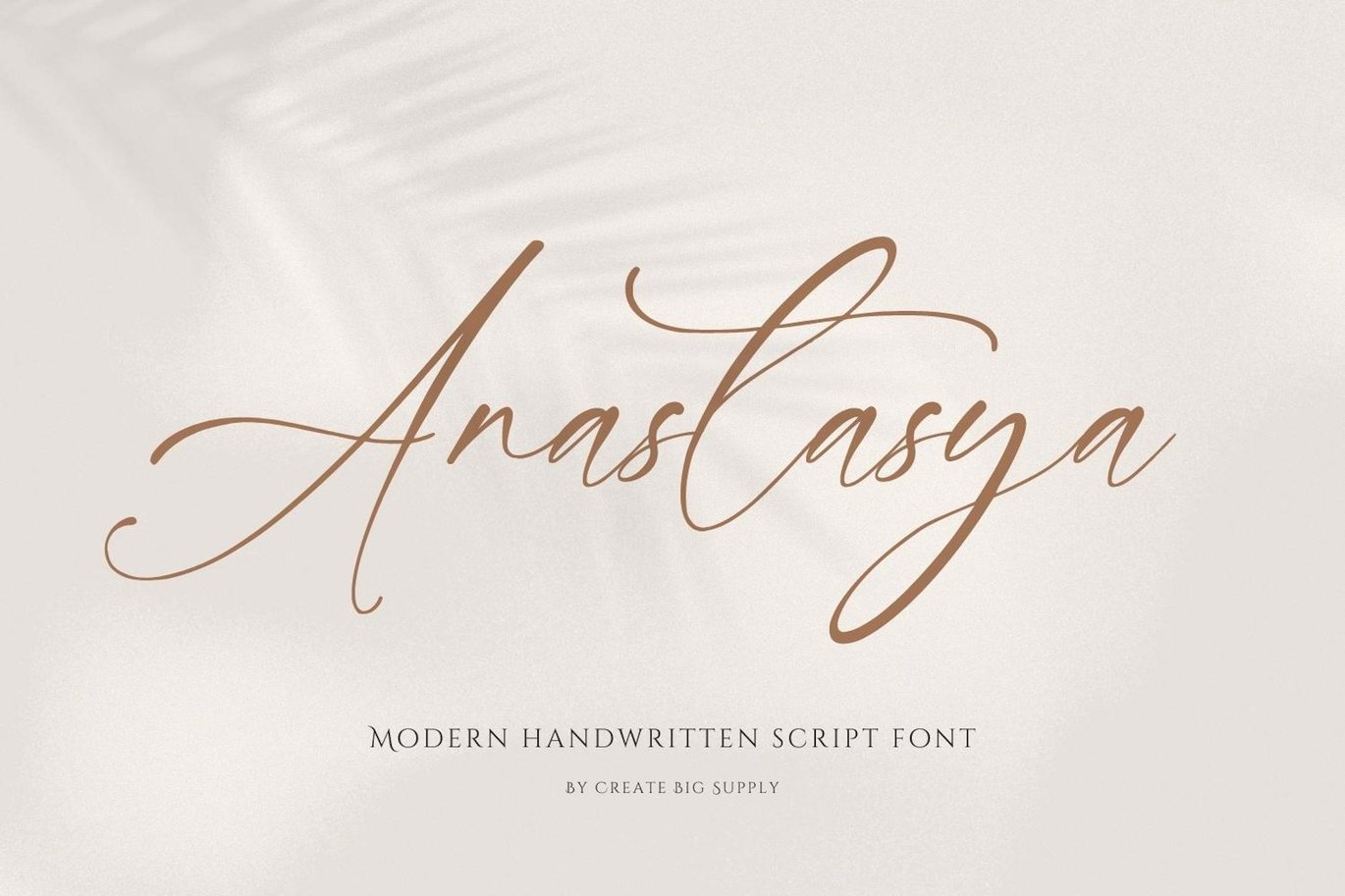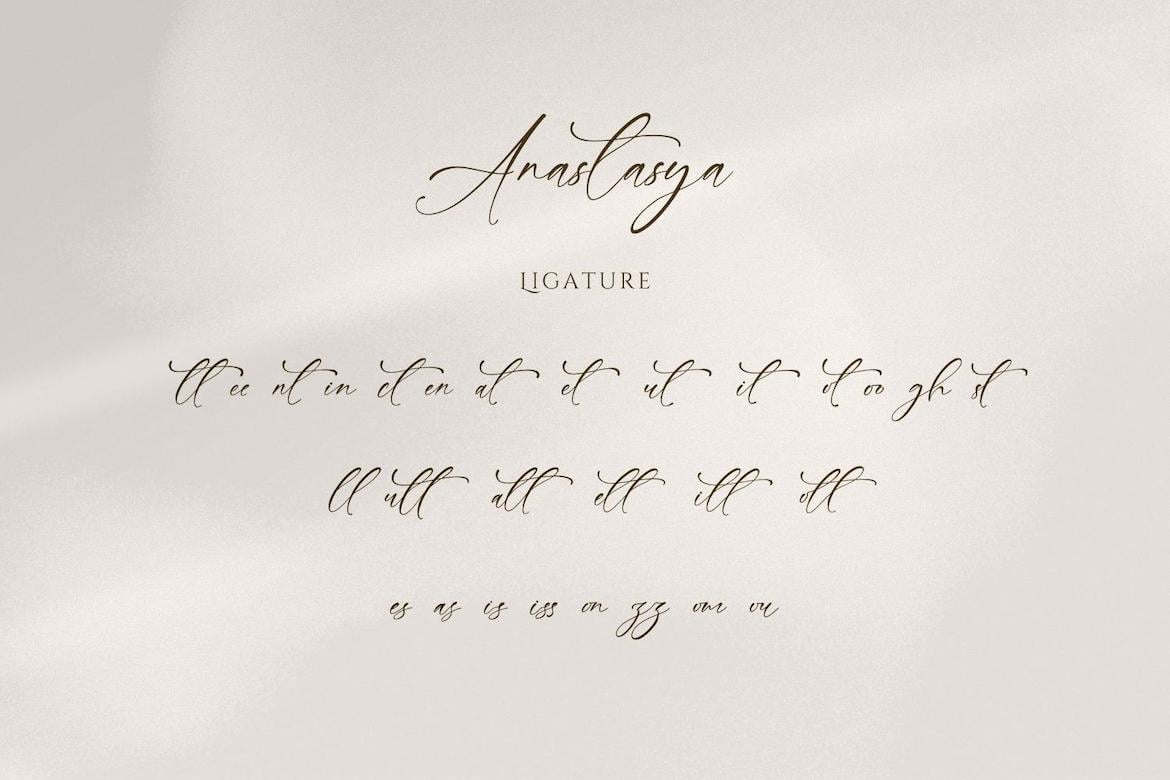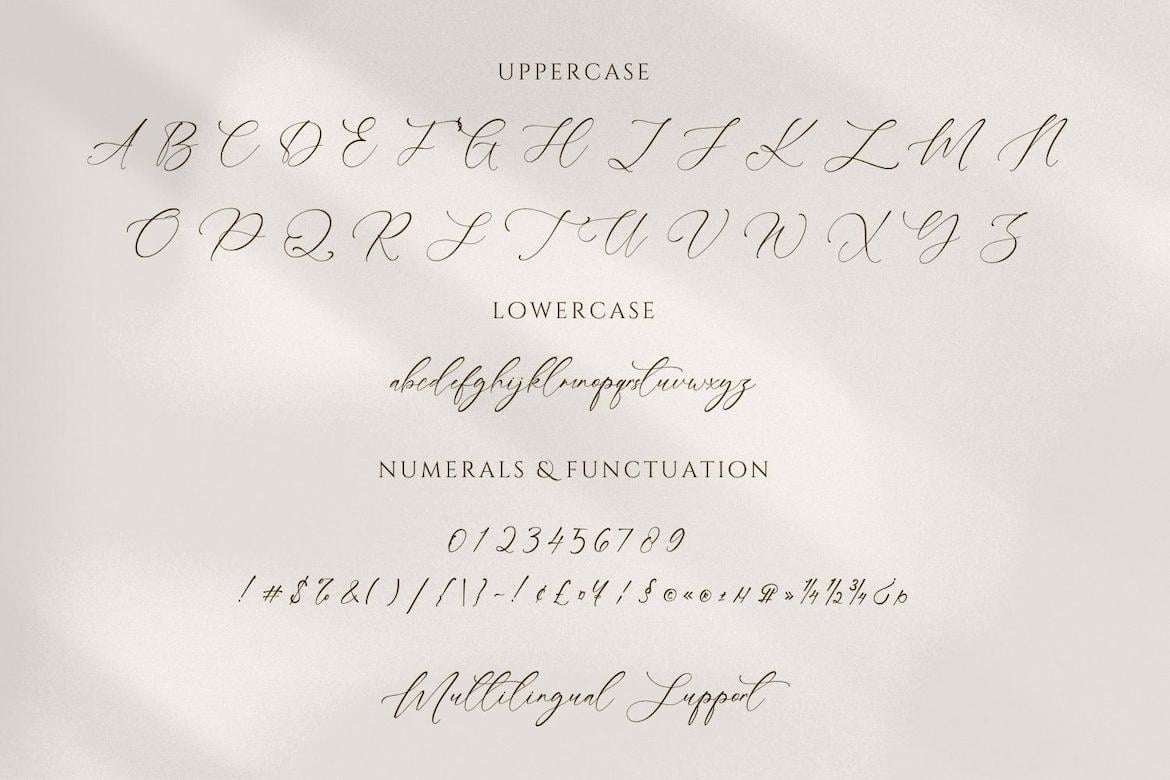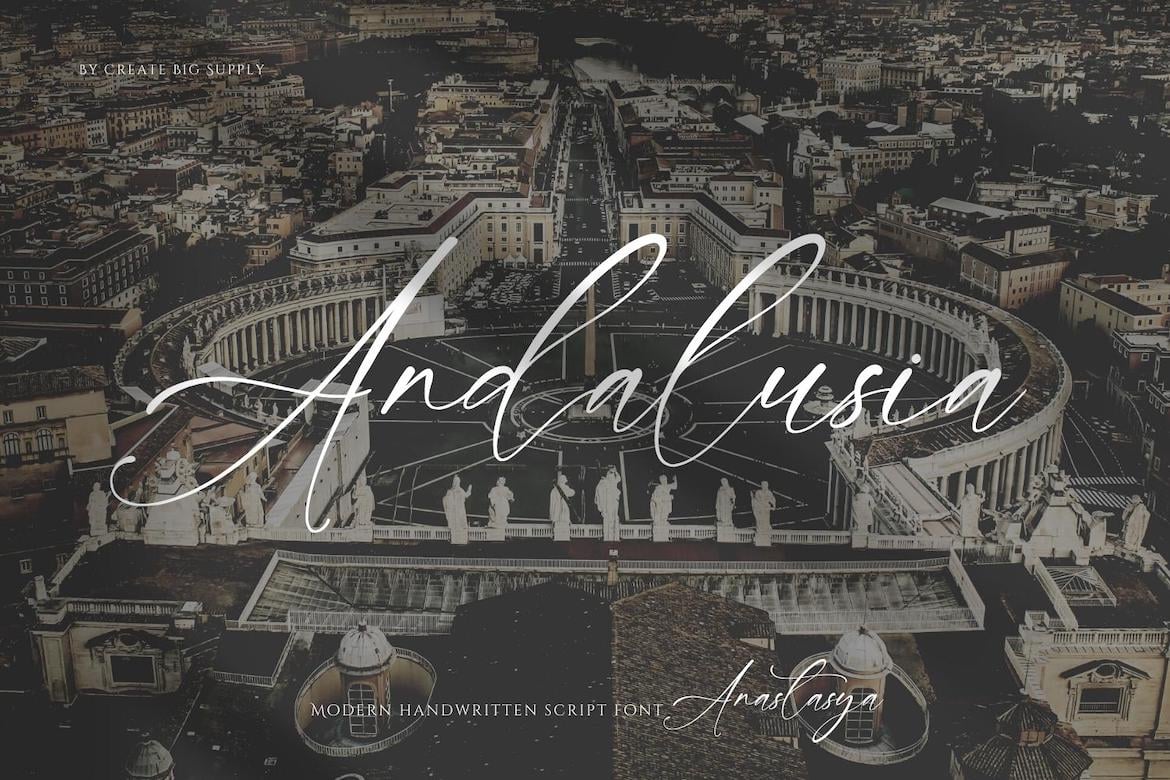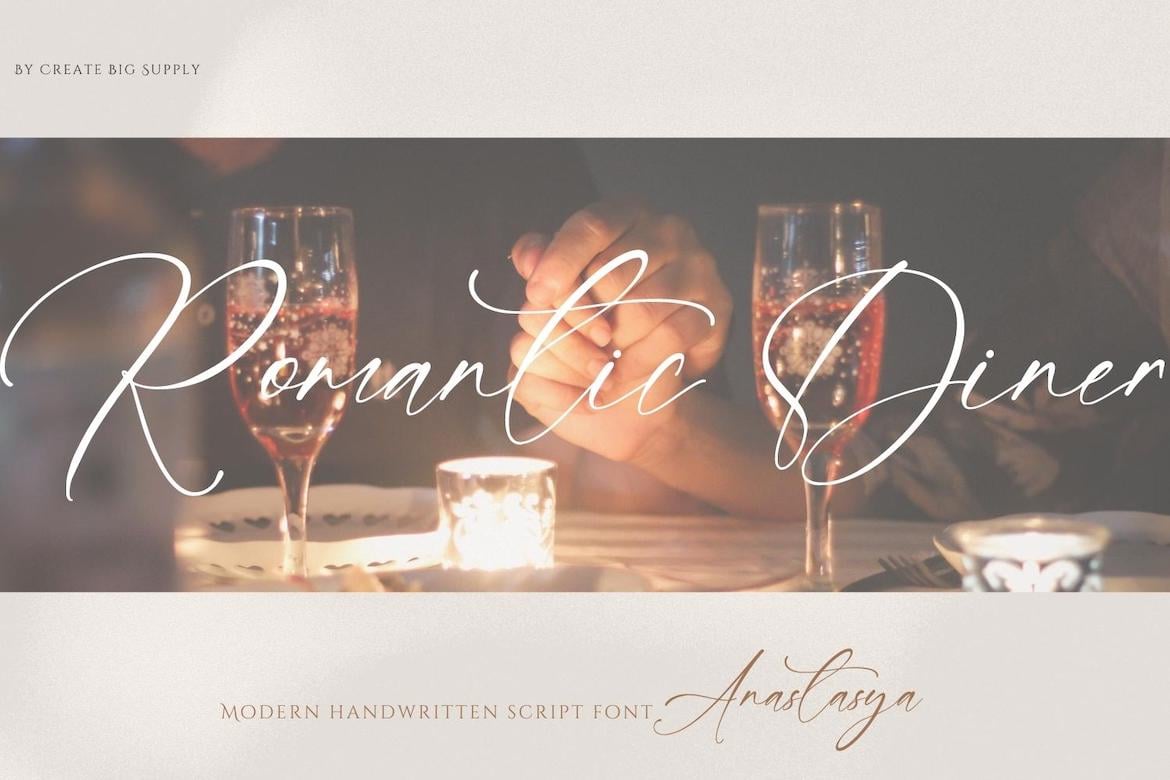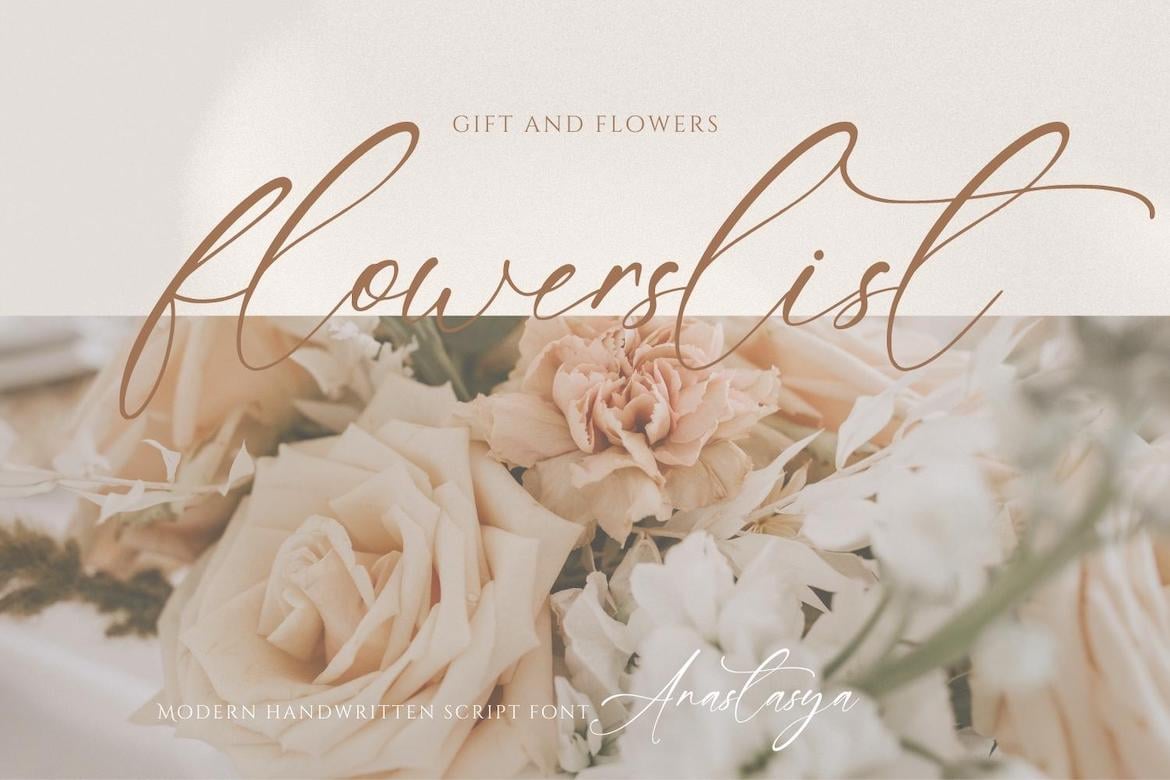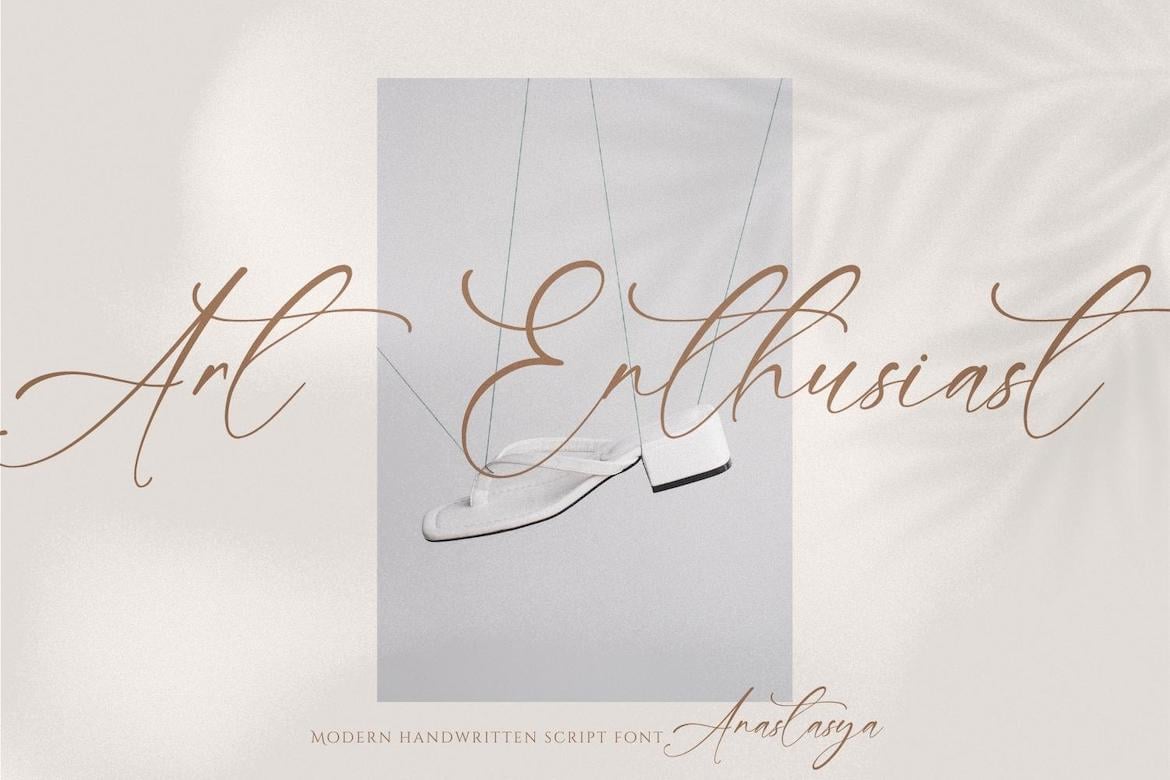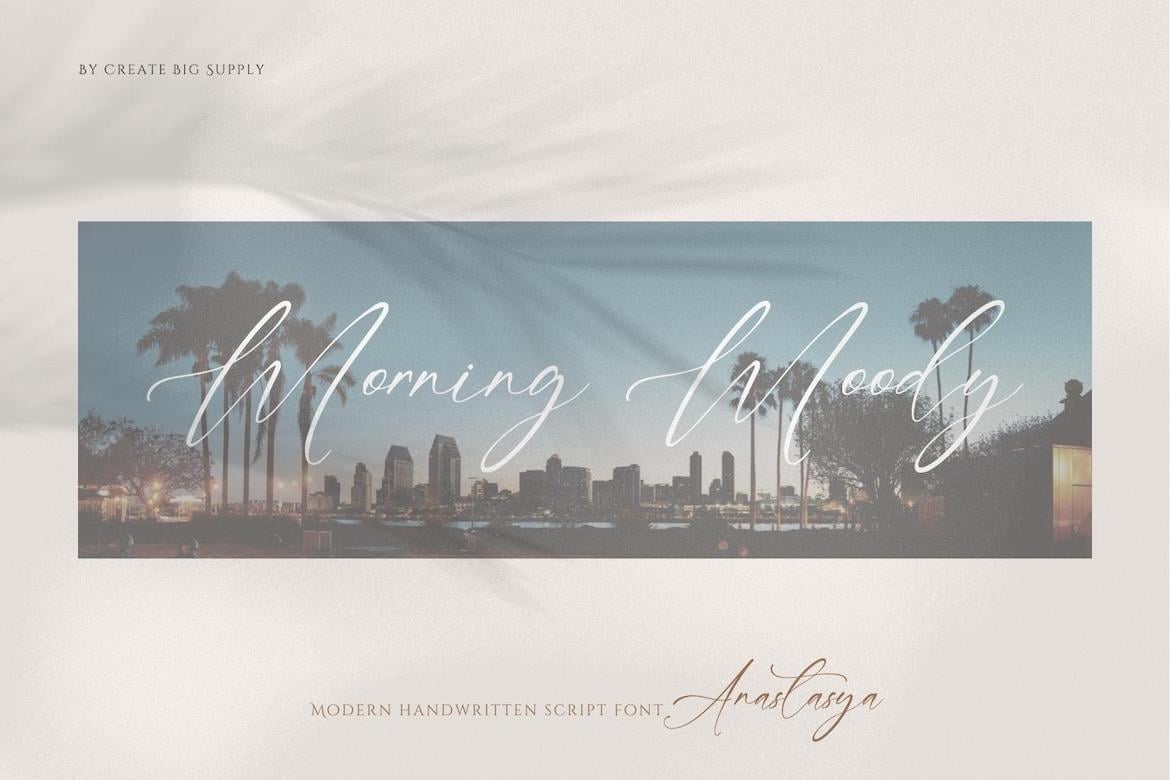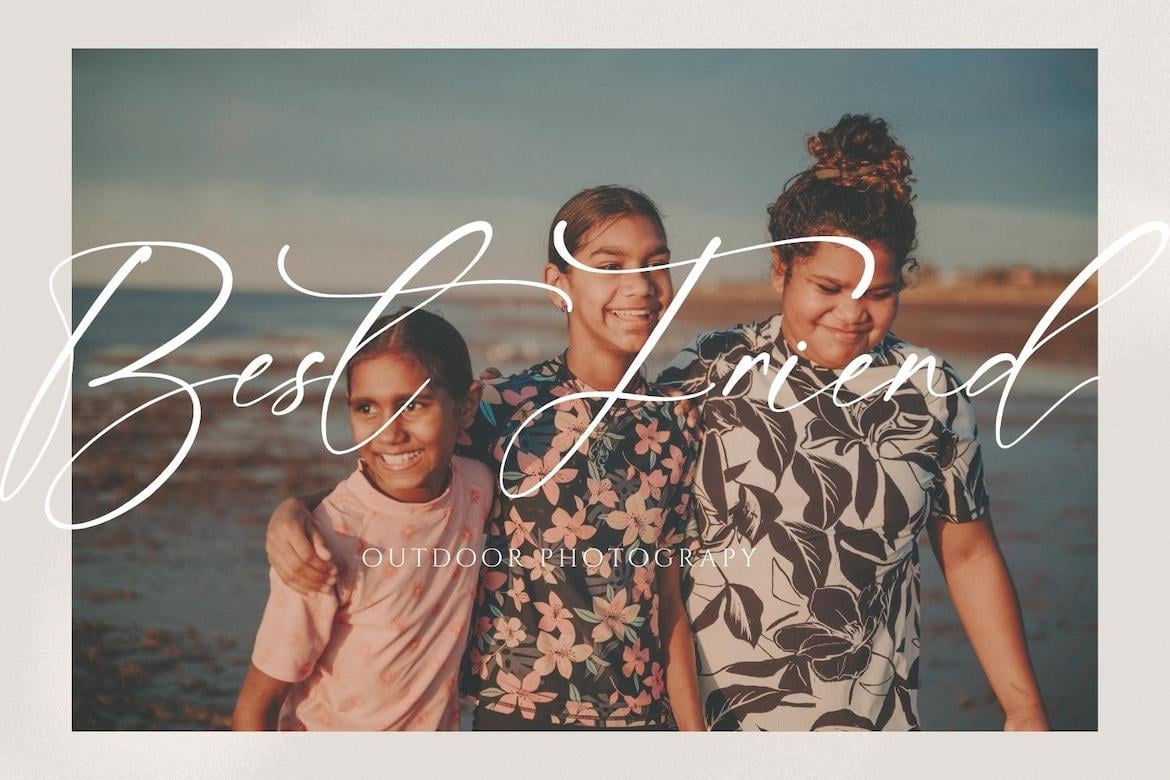
Anastasya Elegant Handwritten Wedding Font
Elegant Handwritten Wedding Font is designed to bring a romantic and sophisticated touch to your wedding invitations, cards, and decorations. Its delicate and graceful strokes make it ideal for all your special occasions.
- Uppercase & lowercase
- Numbers and punctuation
Anastasya Elegant Handwritten Wedding Font
Full Character Set